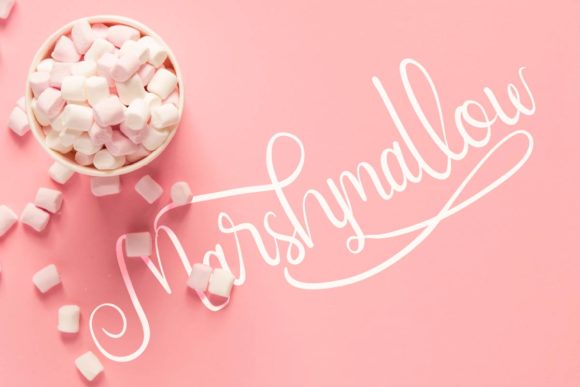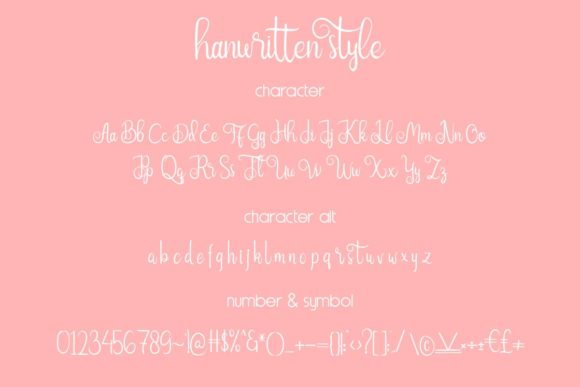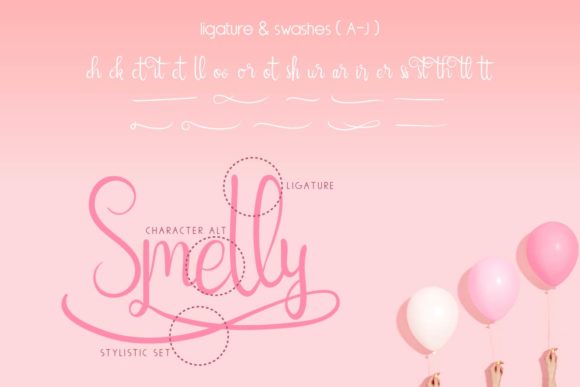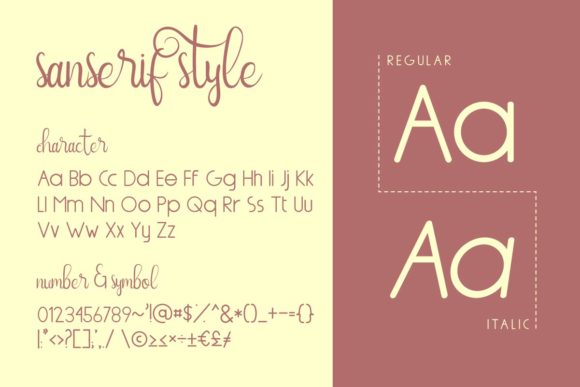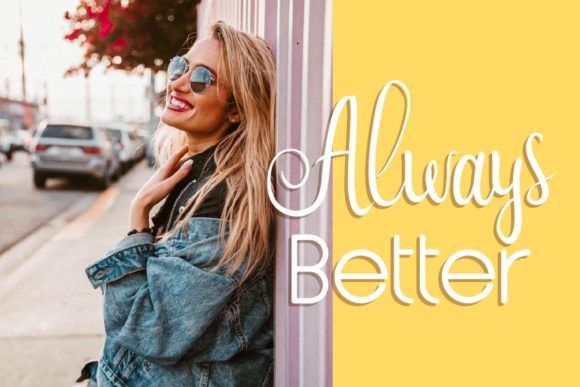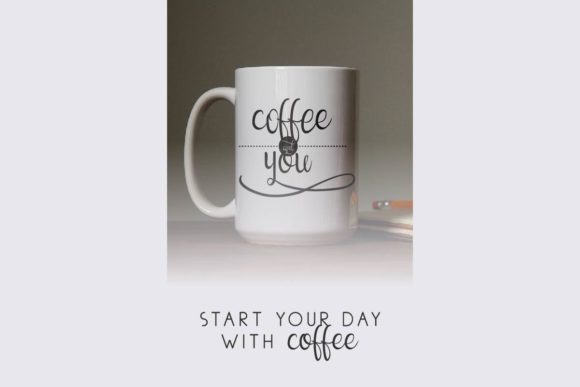
Introduction to Nairi Amber Font
Have you ever stumbled upon a font that perfectly captures the essence of your creative vision? For designers, this is a moment of pure bliss – a moment when all the pieces fall into place. It’s a feeling that’s hard to describe, but it’s the spark that ignites your imagination and sets your design project ablaze. For many, this moment comes when they discover the Nairi Amber Font.
| 👤 Author | EdricStudio |
This beautiful handwritten font is a game-changer for designers seeking to add a touch of authenticity to their creative projects. With its unique charm and character, the Nairi Amber Font is an invaluable resource for anyone looking to elevate their designs to the next level. Whether you’re working on a project that requires a high-quality, transparent background or a free download that’s perfect for your next design endeavor, this font is sure to impress.
Key Features of Nairi Amber Font
- High-quality design resource with a unique, hand-crafted feel, perfect for creative projects.
- Designed with a warm, golden tone that adds a touch of elegance to any design.
- Comes in multiple font weights and styles, allowing for flexibility and customization.
Honest Review: Nairi Amber Font
The high quality of this font is immediately apparent. The elegant, sophisticated design is perfect for any project that requires a touch of class. The transparent background also makes it easy to use as a overlay or texture in your design.
- High quality design that’s perfect for creative projects ✨
- No bold or italic versions available ⚠️
- May not be suitable for projects requiring a more playful or whimsical font
Overall, I’m impressed with the Nairi Amber Font and would highly recommend it to designers looking for a high-quality, elegant font for their next creative project.
Getting the Most Out of Nairi Amber Font
To get the most out of the Nairi Amber Font, use it on a transparent background for a clean and modern look. Experiment with different font sizes and styles to add visual interest to your designs.